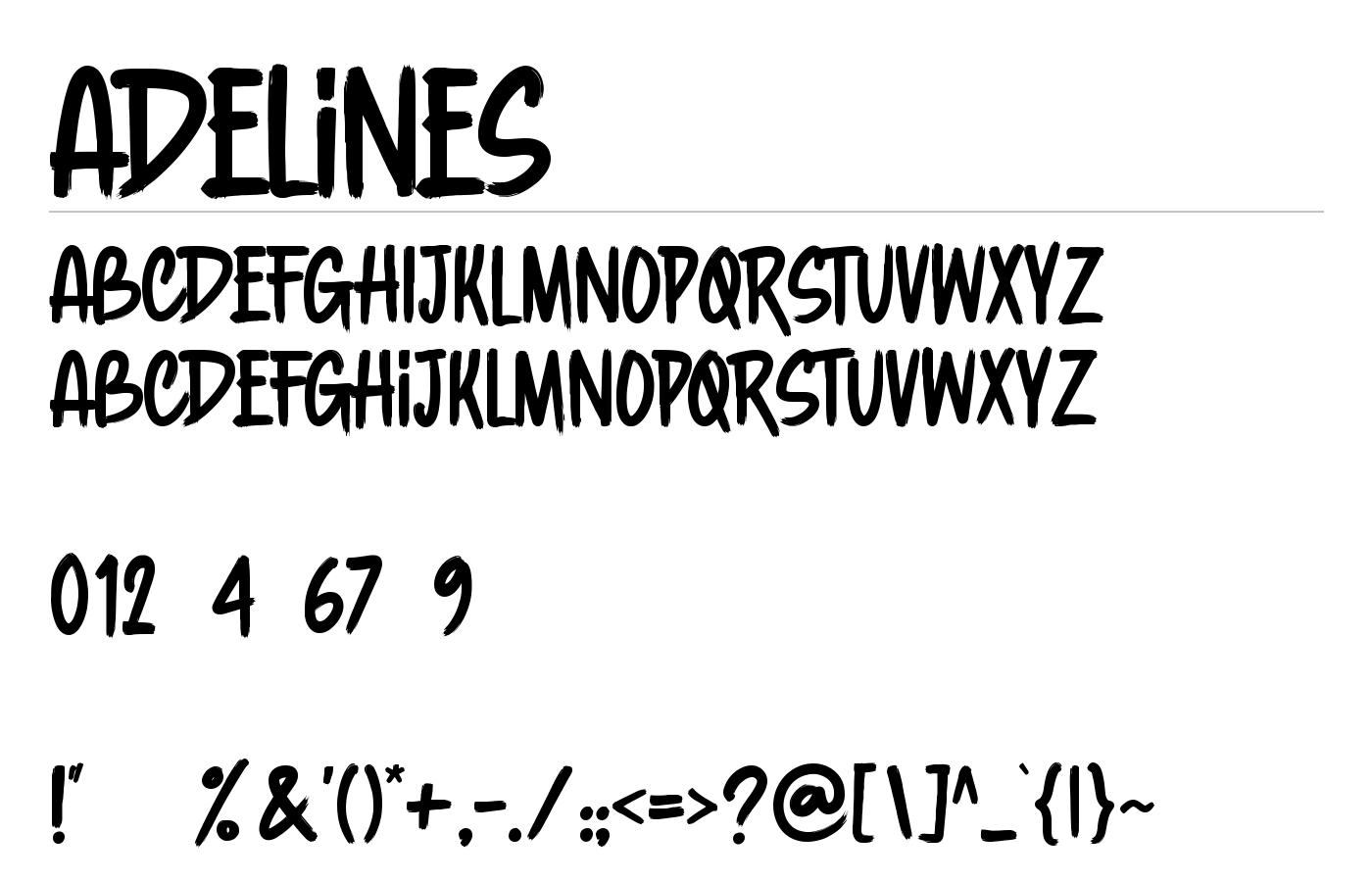
Adelines is a bold, hand-drawn sans serif font with a playful and casual style, featuring irregular strokes that mimic brush lettering. Its tall, narrow letterforms and slightly rough edges give it a lively and energetic personality, making it ideal for creative projects, informal branding, and eye-catching headlines. This font works well for designs that want to convey fun and approachability with a personal, handcrafted feel.
Adelines Font
About Adelines Font